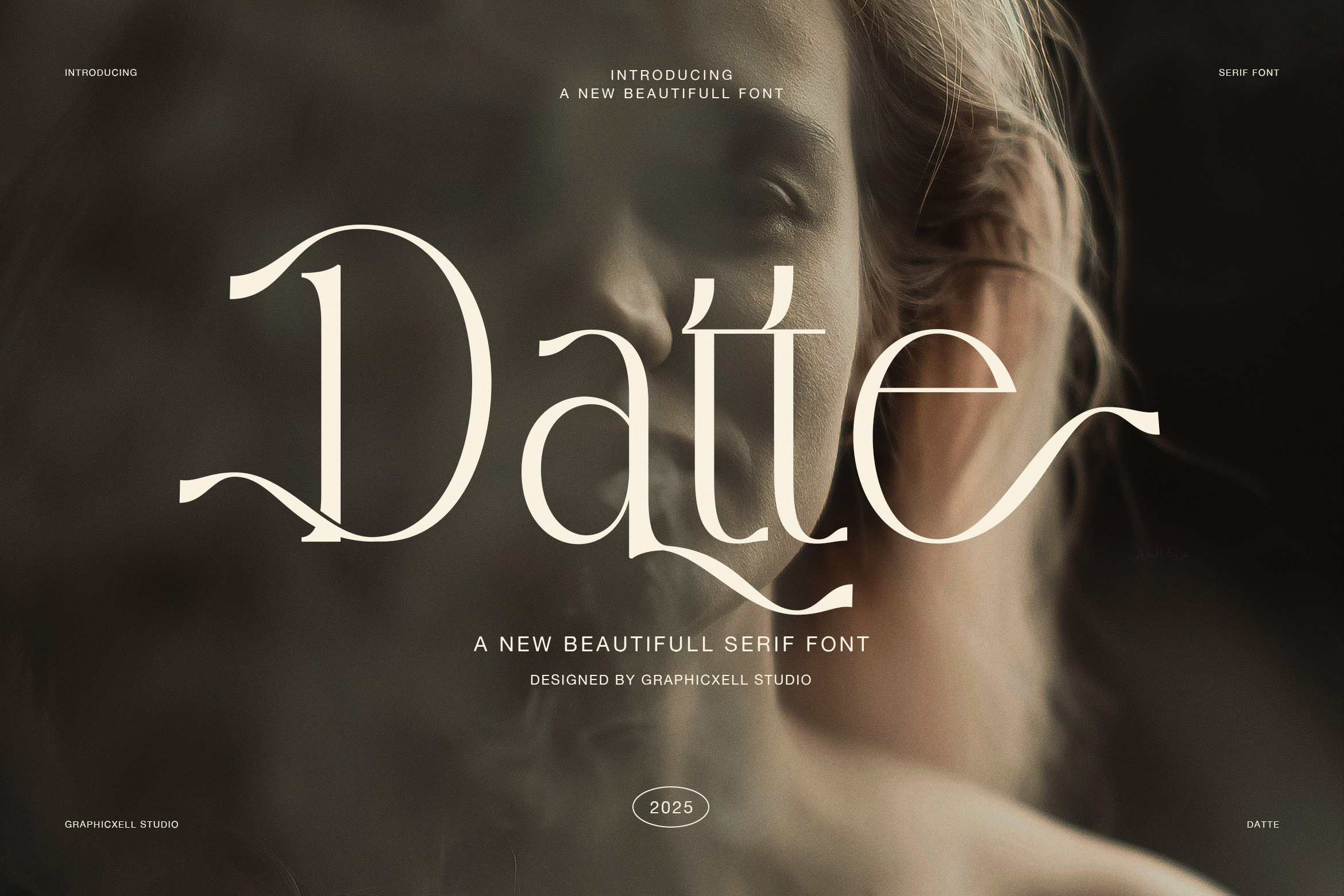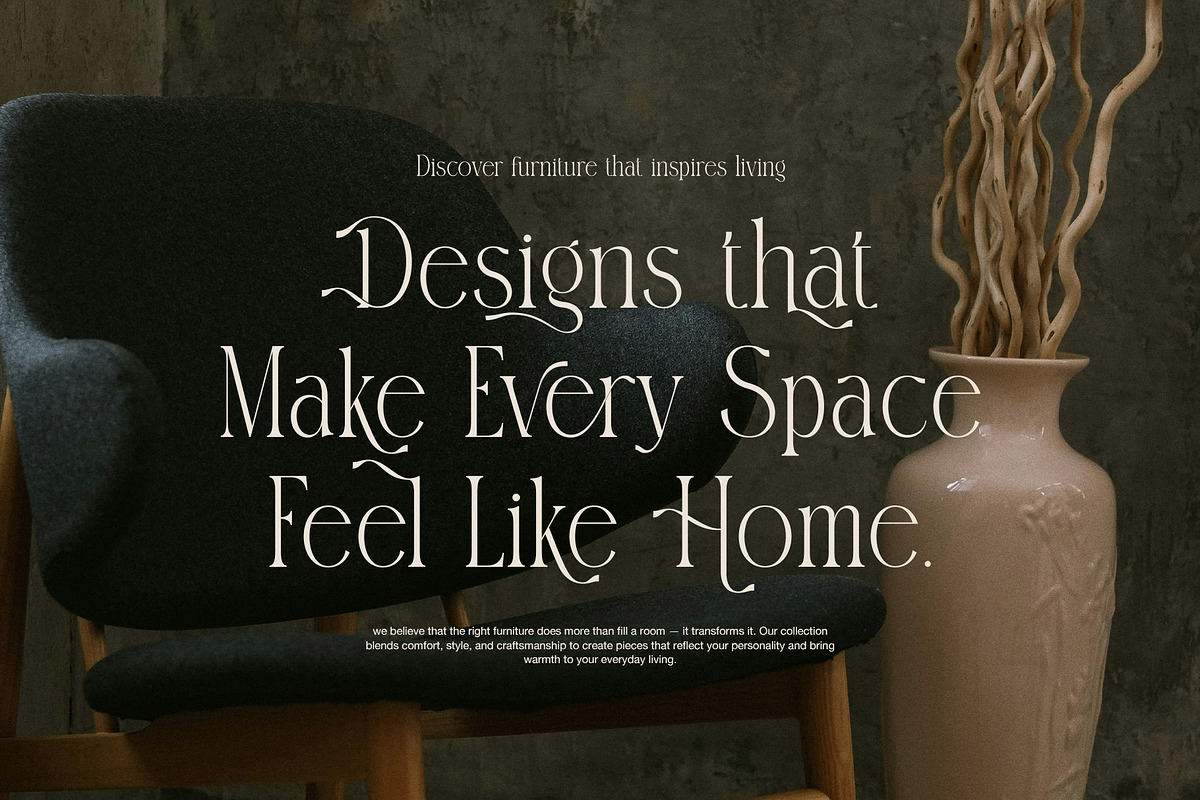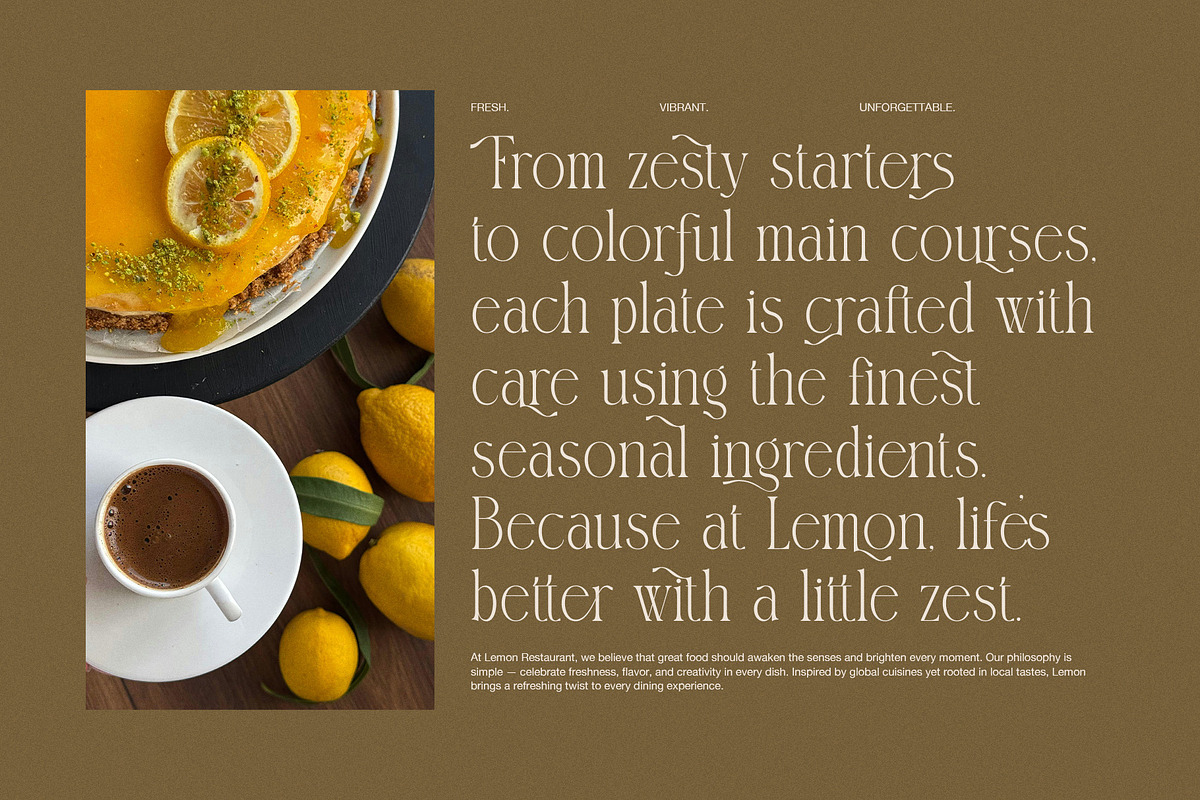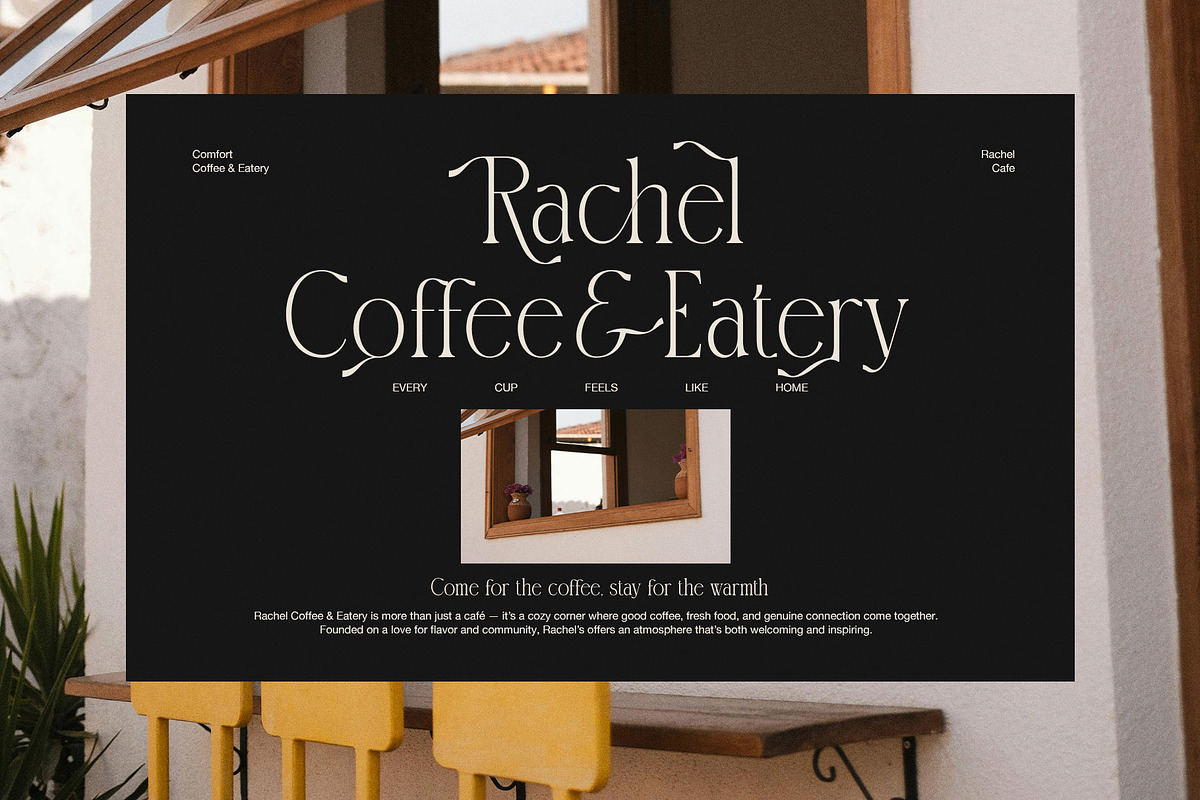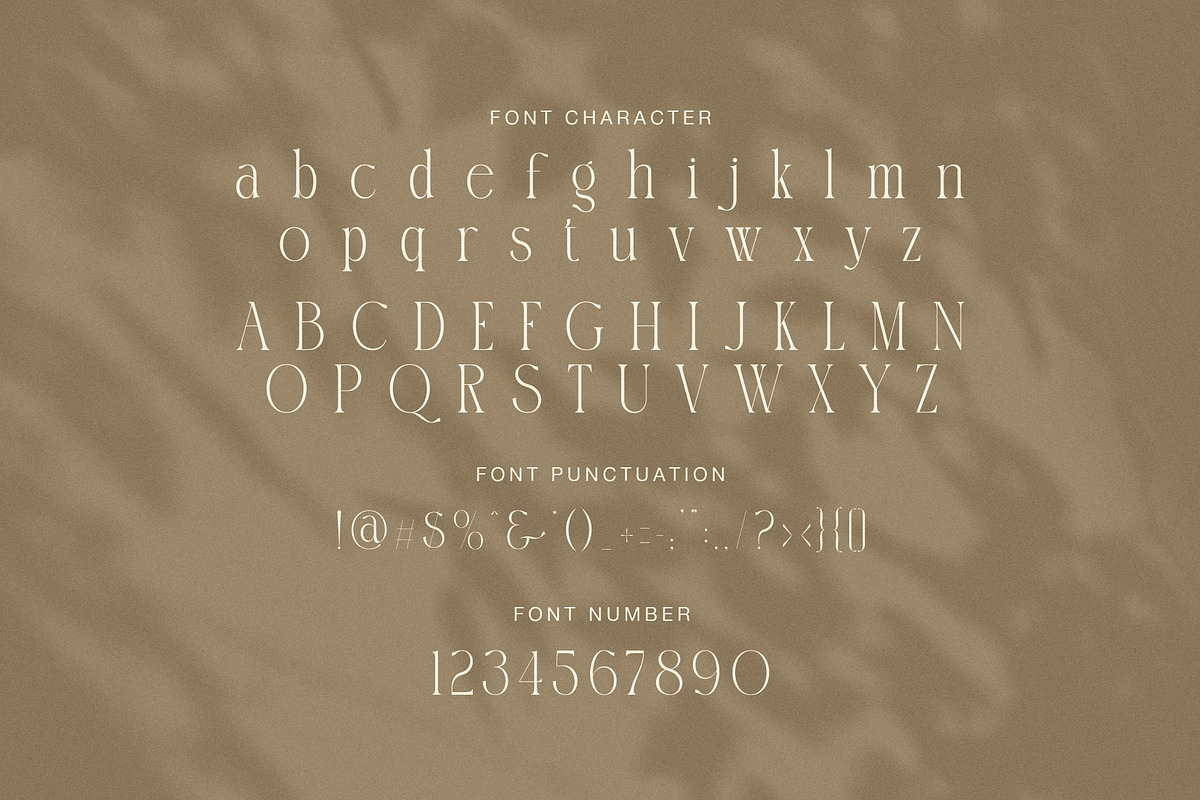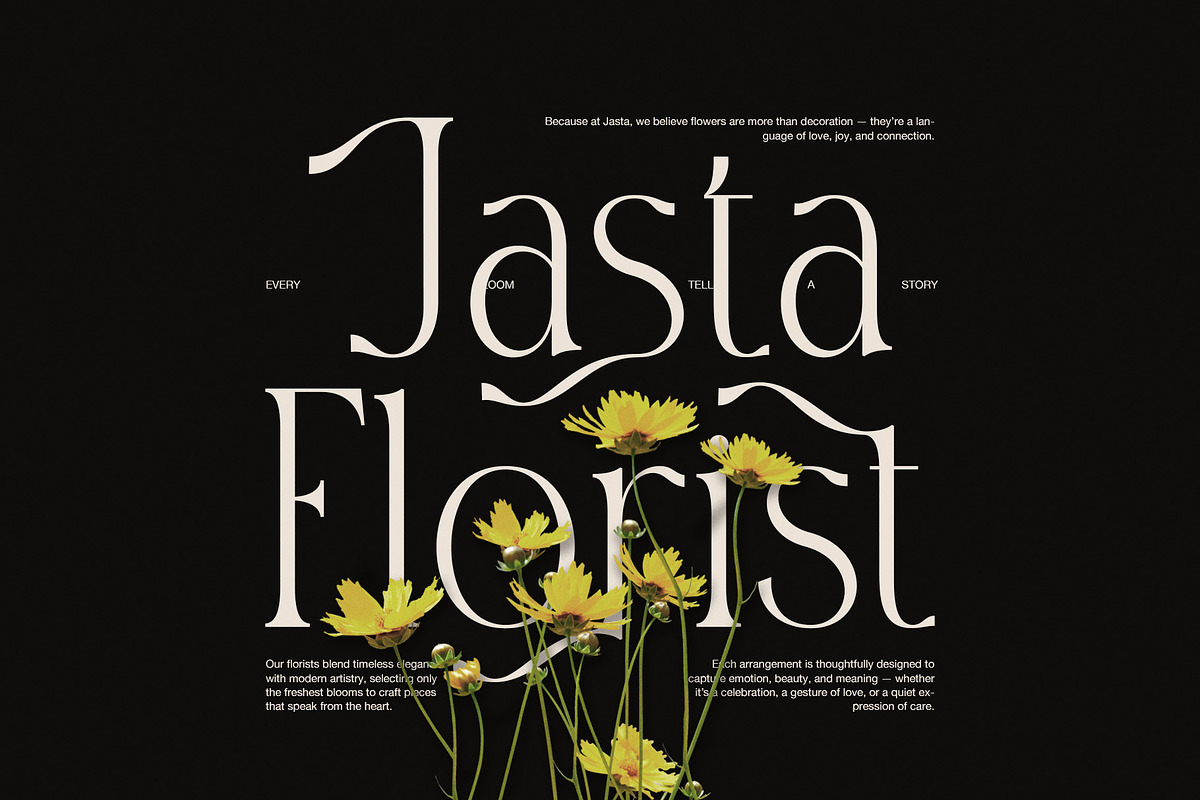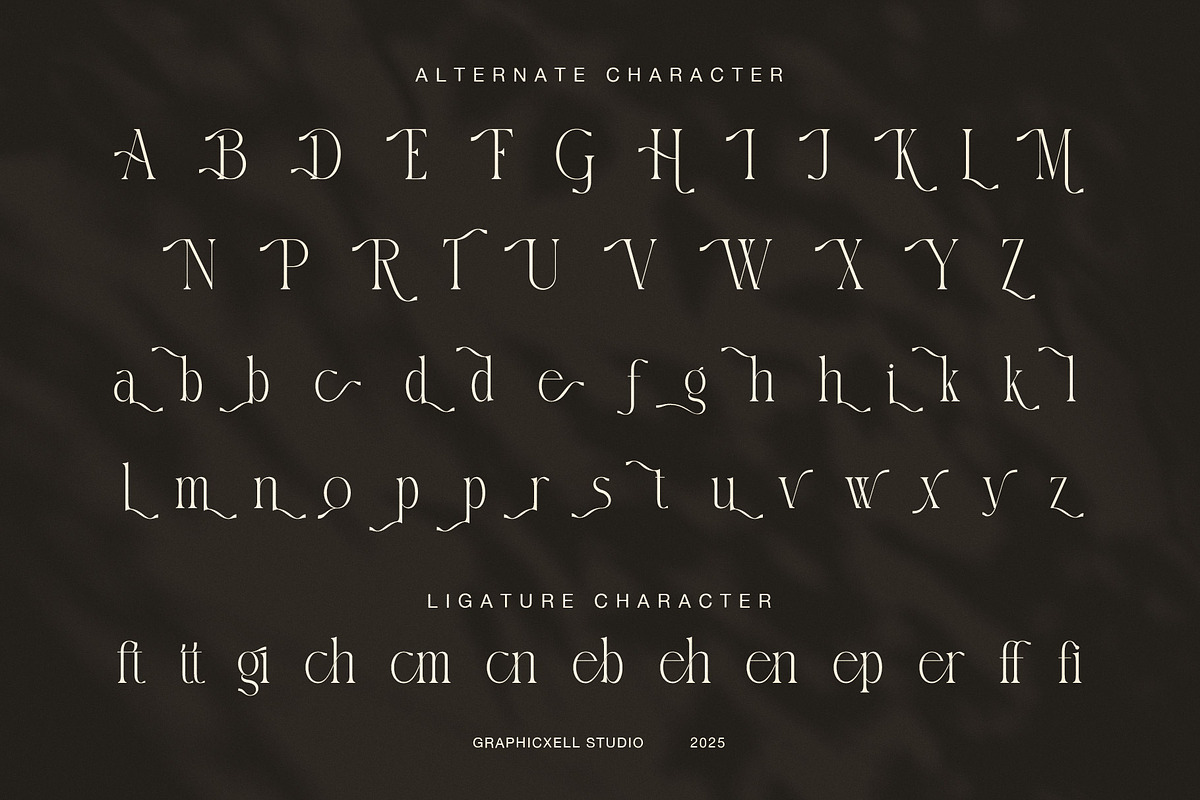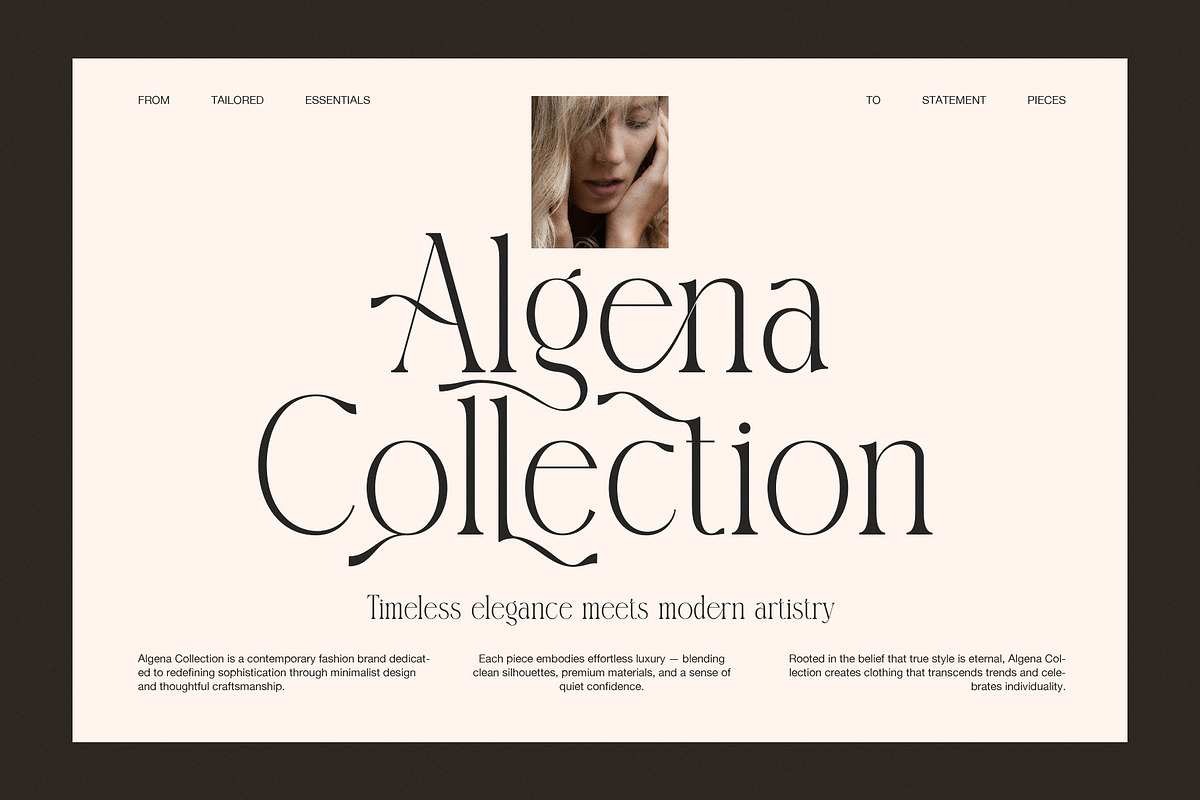
Datte Elegant Serif Display Font
Datte is an elegant serif display font designed to express timeless beauty with a refined modern touch. It blends classic letterform proportions with graceful curves, soft terminals, and flowing alternates, therefore creating a distinctive personality that feels both artistic and luxurious. Because of its balanced contrast and elegant rhythm, Datte works beautifully in high-end visual compositions.
Moreover, Datte features carefully crafted uppercase and lowercase characters, stylish punctuation, numerals, and expressive ligatures. As a result, designers can create smooth typography with a natural flow. Each alternate character adds subtle movement, while ligatures enhance harmony in long headlines and brand marks. Consequently, every word feels intentional and visually pleasing.
Datte shines in editorial layouts, fashion branding, and lifestyle projects. For example, it performs exceptionally well in magazine titles, luxury websites, restaurant menus, café branding, wedding invitations, and product packaging. At the same time, its clarity ensures readability, even when used in longer text blocks or refined taglines.
In addition, Datte pairs effortlessly with minimalist sans-serif fonts, which makes it suitable for modern branding systems. While the decorative details add charm, the structure remains clean and professional. Therefore, designers can use Datte across digital and print media with confidence.
Because Datte was designed with versatility in mind, it supports creative freedom without sacrificing elegance. Whether you are designing for fashion, interior design, floristry, food branding, or premium social media content, this font delivers sophistication and emotional appeal.
Ultimately, Datte is more than a typeface. It is a visual voice for brands that value elegance, storytelling, and refined aesthetics. If you want typography that feels graceful, modern, and unforgettable, Datte is the perfect choice.
Elegant serif display style
Modern and timeless letterforms
Stylish alternates and ligatures
Numbers and punctuation included
Ideal for luxury and editorial design
Works for print and digital projects
Easy to pair with sans-serif fonts